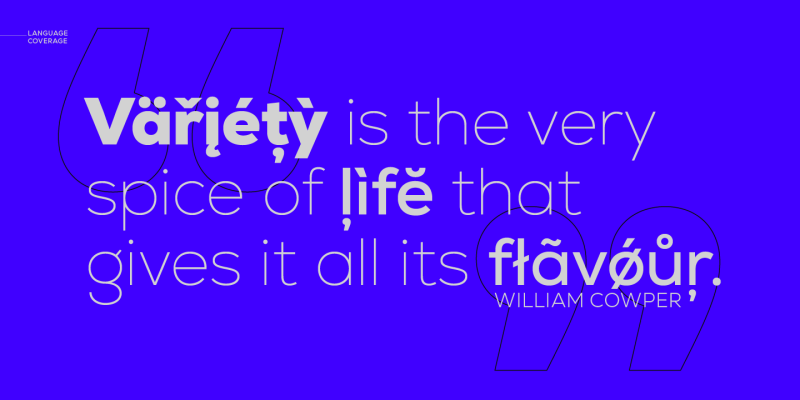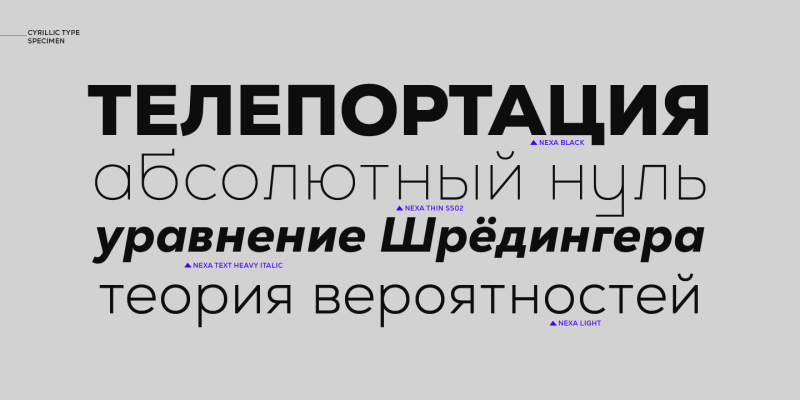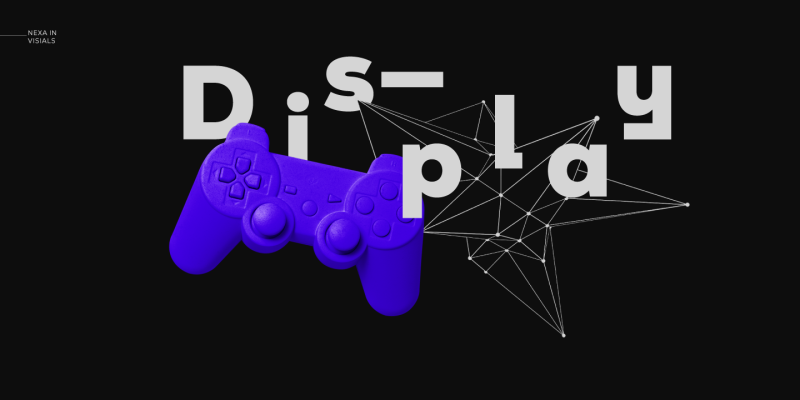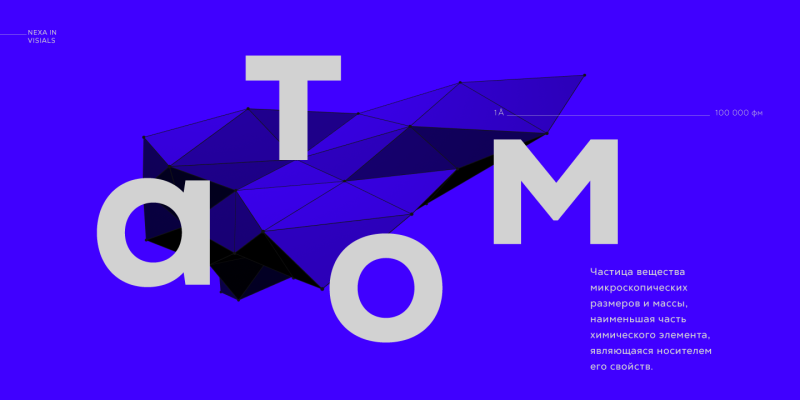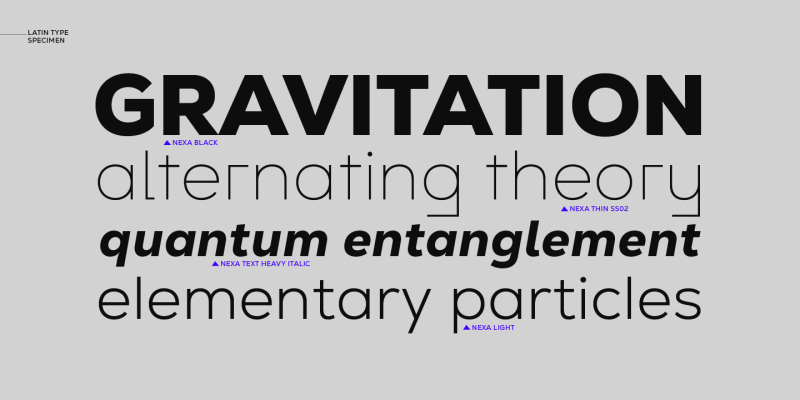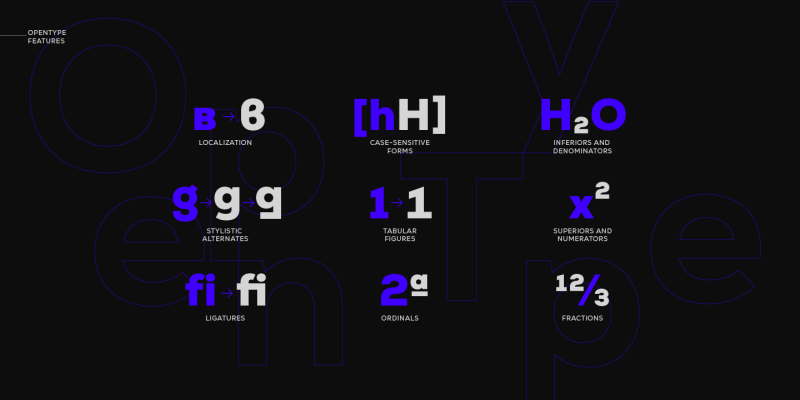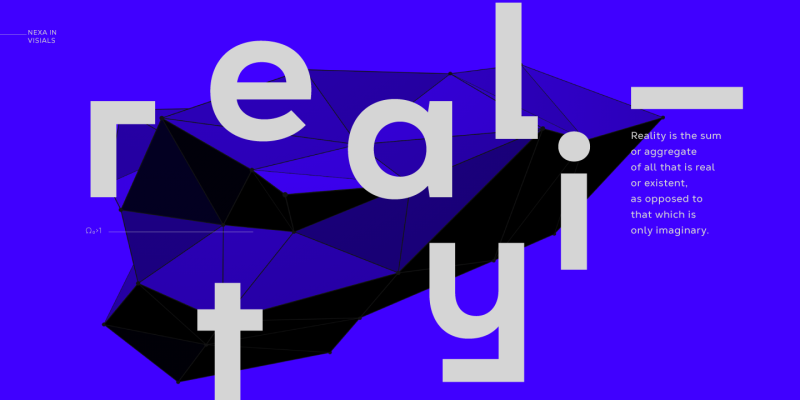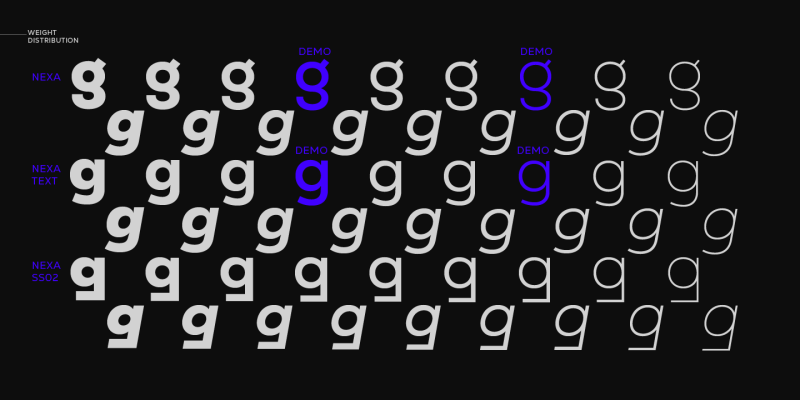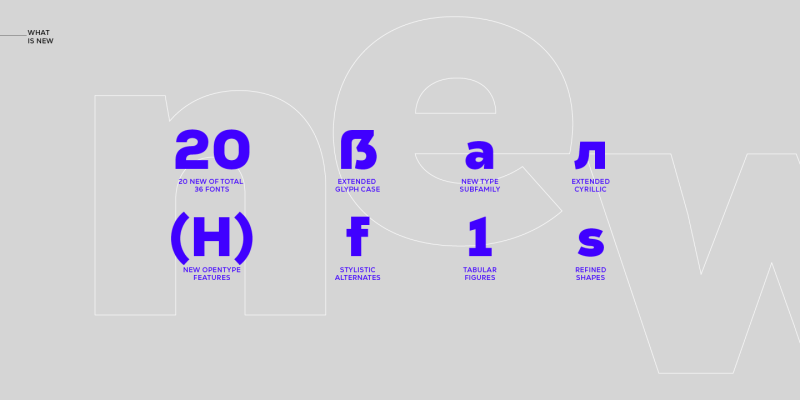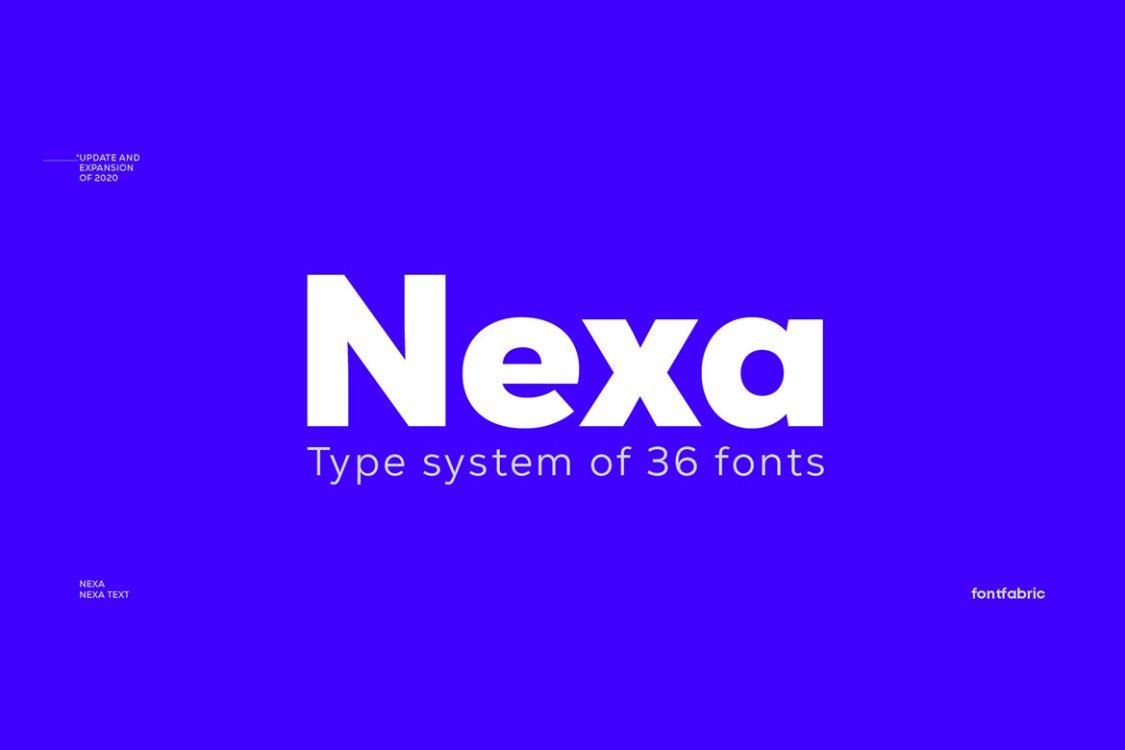
Nexa Font
Nexa, a practical and eye-catching sans serif font created by Fontfabric, has gained popularity and is widely used nowadays. Nexa has become a popular choice among designers and other professionals in different industries due to its clean lines, strong geometric shapes, and the combination of urban and organic forms. This font family has been in the making since 2012, and ever since, it has shown great adaptability and is suitable for various fields such as corporate branding and identity, publishing, web design, and packaging.
Nexa is designed by Svet Simov, a Bulgarian type designer and was published by Fontfabric in the year 2012. The main requirement was to design a font that combines the geometry and the modern trends while maintaining the legibility and application in many different applications. The result is a font family that is not only very practical but also beautiful in its design.
Nexa font family is famous for its geometric shapes, balanced and precise proportions, and clean, sharp lines. The font style has a clean and sleek look, which can easily fit into any design project. Nexa has 36 fonts with different weights, from Thin to Black and respective italics, which allow the designers to have a diverse set of tools to apply. The main strength of Nexa is in the variety of tools that it offers for both print and web design. Its design is based on geometric forms, which is why the lines are straight, and the corners are sharp. Still, fine contours and elements of humanity mitigate the general sternness of the design.
In addition, It offers a plethora of OpenType features, including ligatures, stylistic sets, small caps, and a plethora of numeral variations to help designers fine-tune their typography. Another of Nexa’s key assets is the versatility that characterizes the firm. Optical balance is perfect for both display and text purposes, which makes it great for headlines, body, logos, branding, packages, and the web. However, It is very readable even in small sizes and is for a wide range of uses, even if it has a contemporary style. Clear letterforms and a good amount of space between the lines would allow you to read it without difficulties in any conditions.
Due to its flexibility, It has become popular and useful in numerous creative endeavors. The simplicity of the style and the modern look make it perfect for logos, brands and advertising material in branding and identification. These shapes look very professional and contemporary, but the emphasis on curves and roundness gives it a friendly touch. As for the editorial design, Nexa’s legibility and versatility are worth noting. It suits headlines, subheads, body text, quotes, and captions across magazines, newspapers, and digital platforms, thereby providing a consistent and visually harmonious typographic structure. This is because It is highly suitable for use in digital applications such as websites and online services.
This font is easy to read, especially on screen, thus making it suitable for any reading material, and the different weights and styles make it easier for designers to come up with good layouts. Furthermore, This font has a simplistic and contemporary design language, which works equally well for packaging design, with its geometrical shapes and high readability, and can be easily applied to different packaging shapes and materials. Thus, Its audacity and message delivery are awesome to use in advertising campaigns and can be applicable to various types of advertising, including print ads and digital banners.
Although the Nexa has its own character within the typeface family, the various fonts that are part of this category have some features in common, such as the geometry of the shapes and the modern and versatile design.
Proxima Nova: This particular font type is a sans-serif type by Mark Simonson and it also holds geometric qualities and flexibility.
Avenir: Like Futura, Avenir is another geometric by Adrian Frutiger, which is also a humanistic sans-serif typeface. It possesses similar weight and style variations and is ideal for use in designs and other related purposes.
Gotham: This is a geometric sans-serif typeface that has been designed by Tobias Frere-Jones and is characterized by its strong appearance. Although the font is fairly similar to that of Nexa, Gotham tends to give off a more industrial vibe.
Lato: This very well-known free sans-serif typeface with a geometric foundation is the work of Łukasz Dziedzic and is equally legible. Though the former is more ample and comparatively less condensed than the latter.
It is a geometric sans serif font that has a very clean and modern look due to its simple design. It is popular in the fields of branding, web design and print.
Although It is a paid font, there are a number of free fonts that have a geometric san serif style that is similar to Nexa. These are some of the examples; they include Montserrat, Raleway, and Quicksand.
The linguistics support of Nexa includes Latin, Cyrillic, and Greek characters.
Where Nexa Font works best
Nexa Font stays legible at small sizes, which makes it a strong choice for navigation, buttons and dashboards in web design and app interfaces.
What is Nexa Font good for?
Nexa Font is a Sans Serif Fonts typeface tagged Clean, Condensed, Geometric, Humanist. It works well for headlines, logos, posters, social media graphics and branding projects that need a distinctive sans serif fonts look.